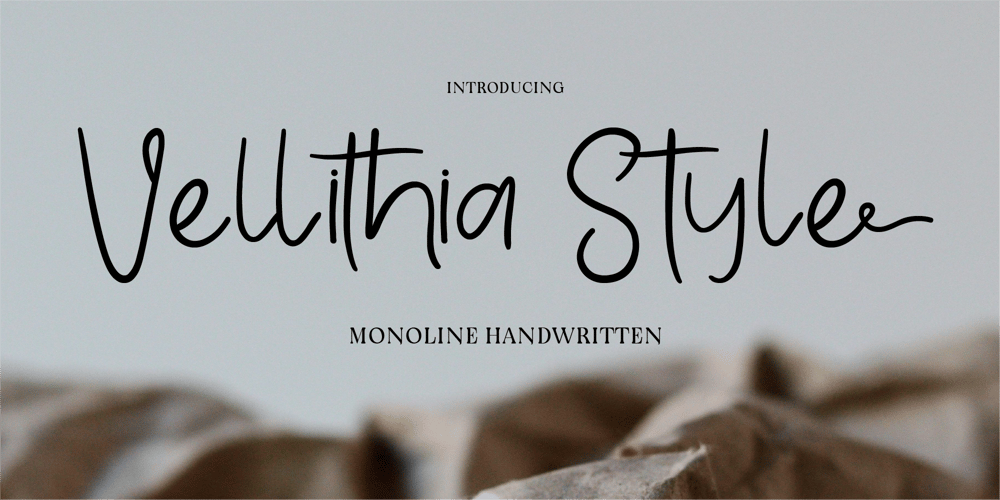
CF Vellithia Style Font Family was designed by Gilang Mei Nugraha, Frederik Aristaputra and published by Creatifont Studio. CF Vellithia Style contains 2 styles and family package options. Vellithia Style is a sophisticated monoline handwritten font designed to bring a touch of natural elegance to your projects. Its clean and flowing strokes make it ideal for logos, branding materials, wedding invitations, and personal signatures. Perfectly blending modern minimalism with a personal charm, Vellithia Style adds warmth and personality to any creative endeavor.A SUMMARY OF WHAT’S INCLUDED:- Standard Character A-Z, a-z, 0-9, Punctuation & symbols- Regular and Italic- Works on PC & Mac- Simple installation- Accessible in Adobe Creative Suite (Ai, Ps, Id, etc.) even work on Microsoft Word.- PUA Encoded Characters – Fully accessible without additional design software.🌟If you come across any issues or notice anything we might have overlooked while using this product, please feel free to reach out to us. We greatly value your feedback as it helps us enhance and refine our products. Thank you!